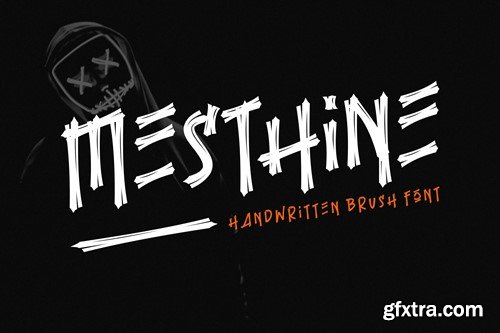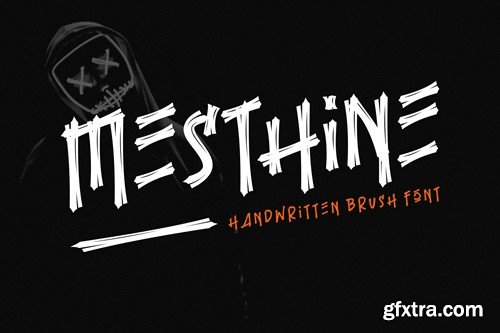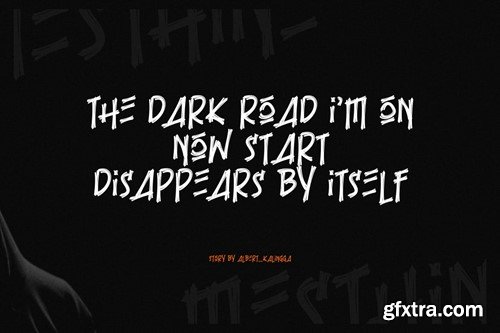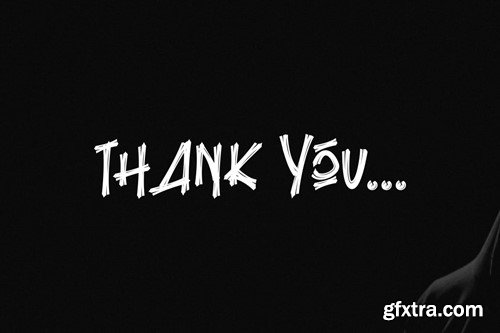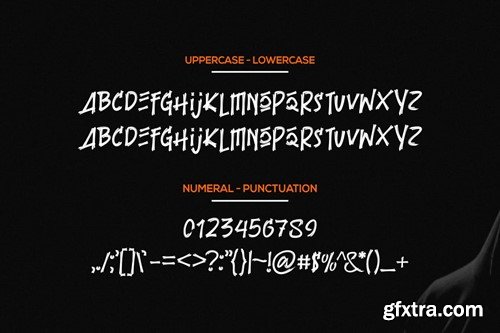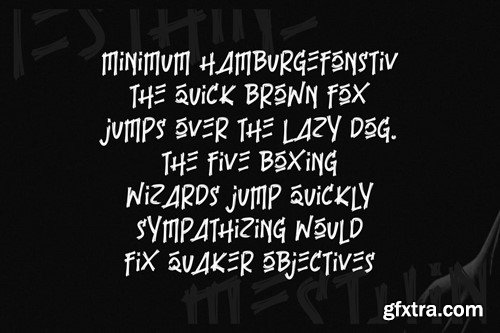
Mesthine Font
Introducing our new product Mesthine Font - Modern Font is a bold and authentic display font. The font is suitable for any branding project like logo, esport, and many more. outstanding in a wide range of contexts. availlable